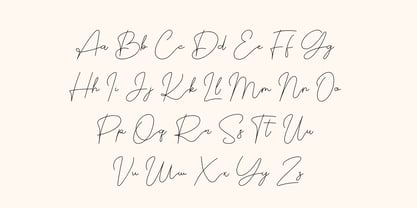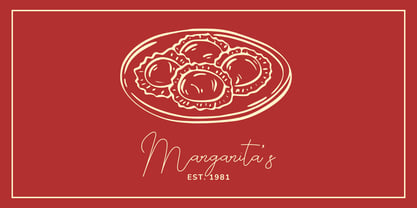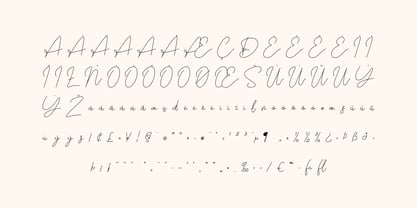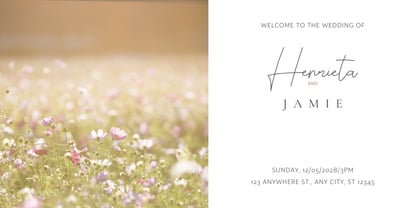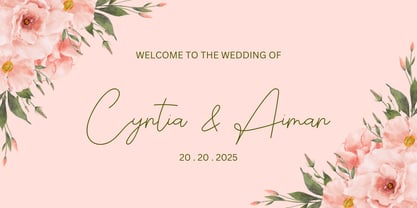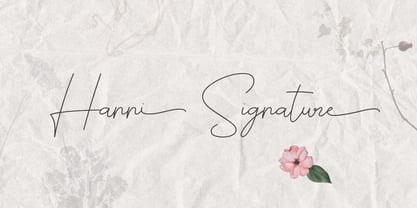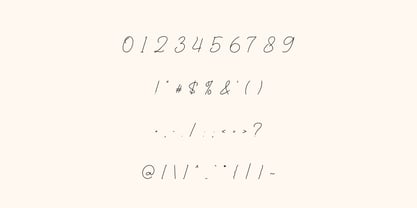
Hanni Signature
by Pikgura Type
The Hanni Signature Font Family was designed by Acmarsita Caerola and published by Pikgura Type. Hanni Signature contains 1 styles. More about this family
Hanni Signature is a graceful signature-style script font that brings a touch of elegance and warmth to your designs. Inspired by the natural flow of handwritten notes and personal letters, this font blends casual charm with refined, expressive strokes. Its smooth curves and balanced rhythm create an authentic handwritten feel, making it ideal for branding, wedding stationery, packaging, social media graphics, and editorial layouts that require a personal yet sophisticated touch.
Designers: Acmarsita Caerola
Foundry: Pikgura Type